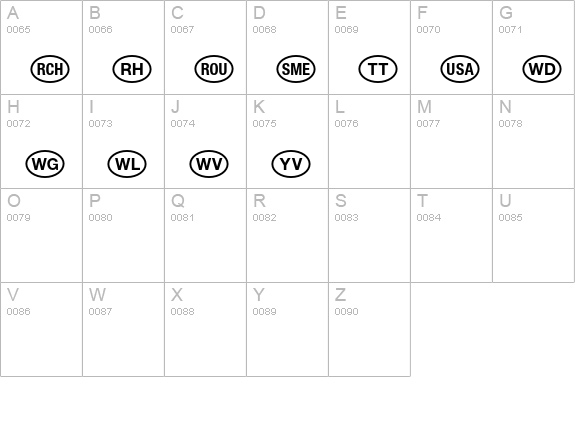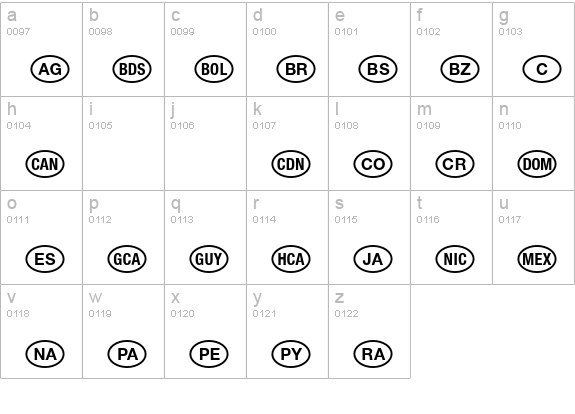
NationalCodes America Font Details
NationalCodes America is a sophisticated and modern font that exudes elegance and professionalism. With its sleek lines and clean design, this font is perfect for a wide range of design projects, from branding to editorial design. The versatility of NationalCodes America makes it a go-to choice for designers looking to add a touch of sophistication to their work. The best part? NationalCodes America is available for free download at FontsMarket.com. This means that you can easily access this stunning font and start using it in your projects right away. Whether you're working on a website, a logo, or a brochure, NationalCodes America will elevate your design and help you stand out from the crowd. So why wait? Download NationalCodes America today and see the difference it can make in your designs. Experience the beauty and versatility of this font for yourself, and take your projects to the next level with NationalCodes America.